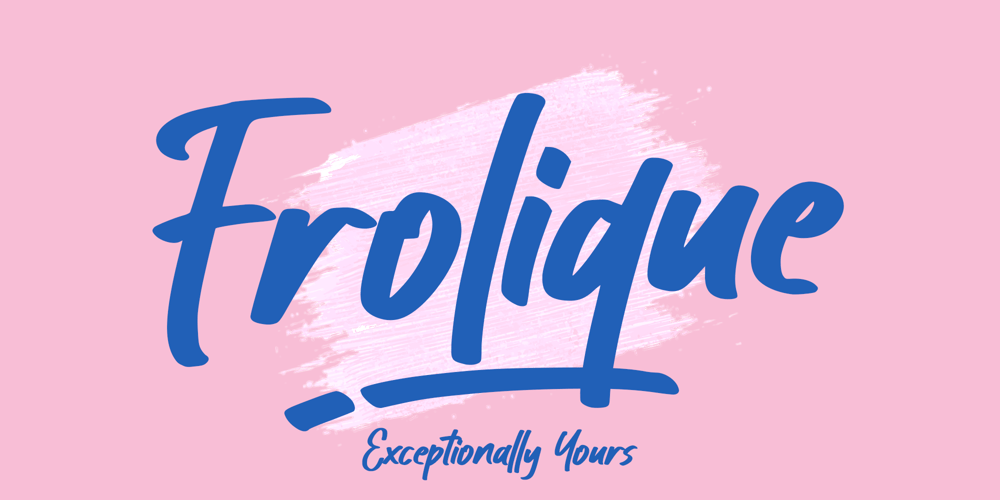
Frolique Font Family was designed by Muhammad Mujibulloh and published by MJB Letters. Frolique contains 1 styles and family package options. Frolique is a playful yet sophisticated script font designed to bring a touch of charm to any project. With its smooth curves and casual strokes, Frolique effortlessly balances elegance with a modern, friendly feel. Ideal for branding, packaging, and creative design work, this font stands out with its unique character and refined style. Frolique includes underline swashes that allow for seamless, personalized lettering. Whether you’re crafting a logo, invitation, or social media post, Frolique adds a premium and fun touch, ensuring your message shines exceptionally.